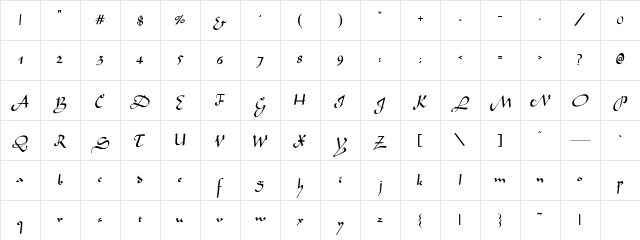
Bogart-Normal Regular
Bogart-Normal Regular Font Preview
Bogart-Normal Regular Uppercase Preview
Bogart-Normal Regular Lowercase Preview
Bogart-Normal Regular Numeric Preview
Bogart-Normal Regular Character Map
Complete Bogart-Normal Regular glyph index. Displaying only characters natively supported by Bogart-Normal Regular font.
Bogart-Normal Regular Character Map
Design Context for Bogart-Normal
Bogart-Normal is a composed and adaptable typeface that performs quietly and consistently across a wide range of design contexts.